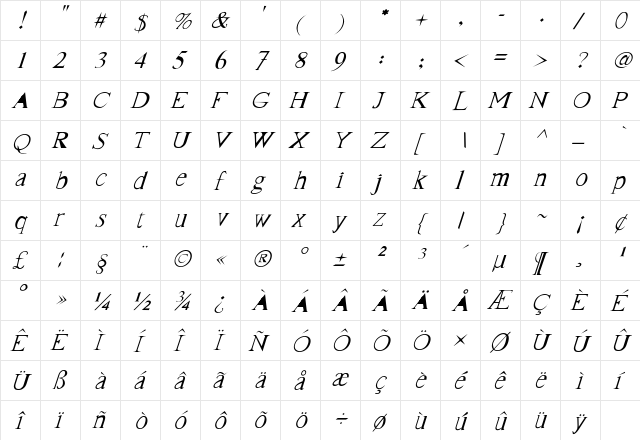
Coogan Italic Regular
Design Context for Coogan Italic Typeface
Coogan Italic offers clean, dependable letterforms without strong stylistic allegiance, making it a practical choice for designers who need flexibility. The dynamic lean of this cut emphasises speed and emphasis in any layout.
Pro Tip: Try Coogan Italic for annotation and caption copy alongside an upright companion — the contrast in angle creates a dynamic but ordered typographic system.